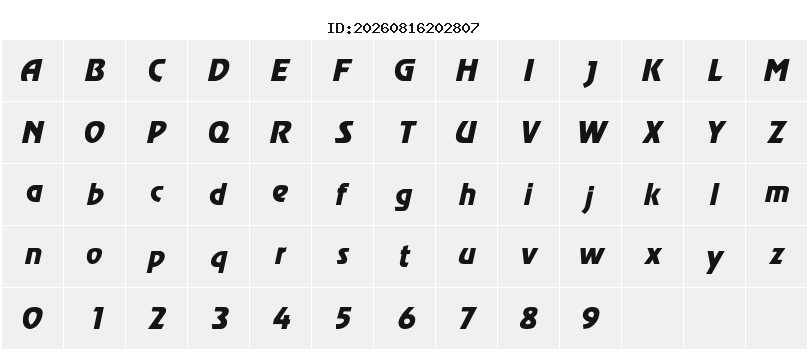
• Font Name: Spacedock
• Full Font Name: Spacedock
About Spacedock.ttf
Spacedock.ttf is a modern, elegant sans-serif font designed for ultimate readability and visual harmony. Perfect for branding, headlines, web design, and print materials.